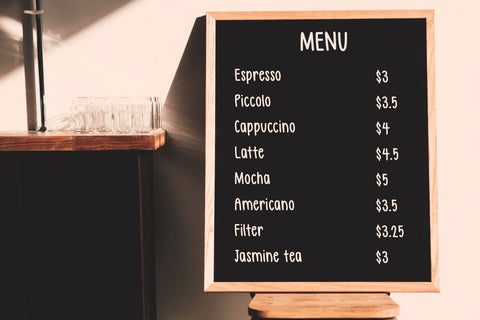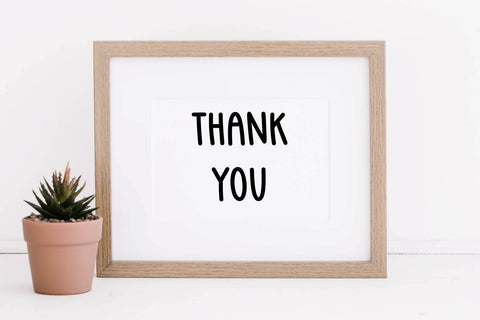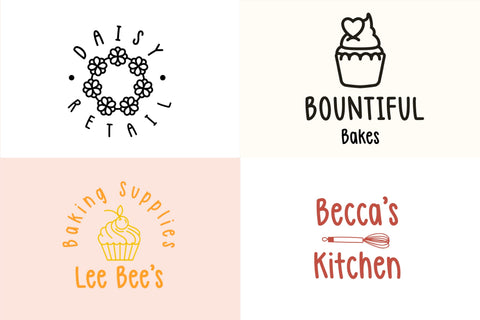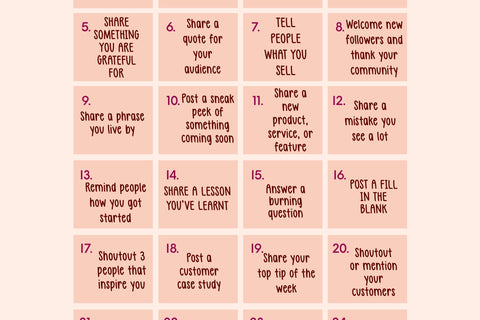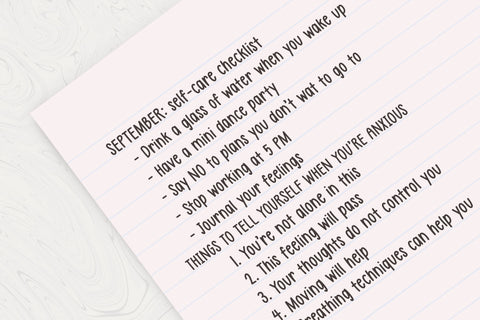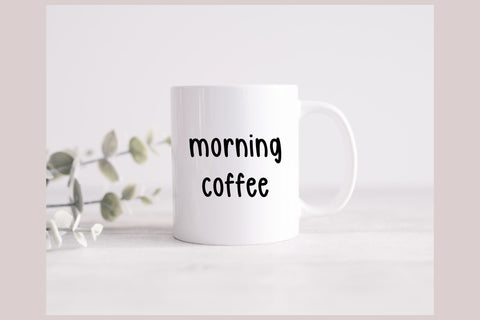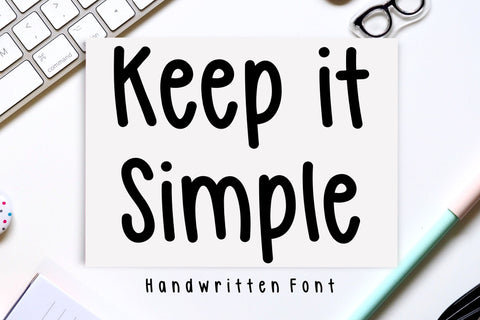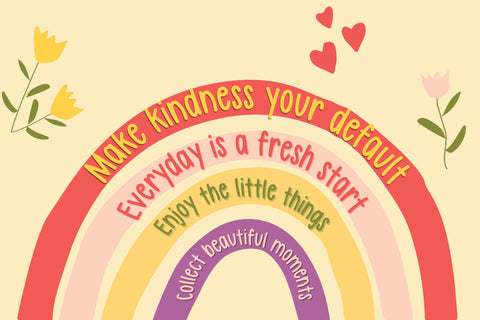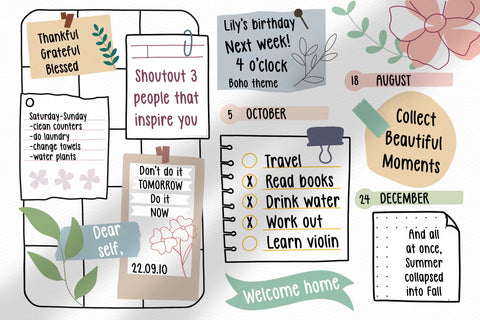
Keep It Simple - Handwritten Font
Keep it Simple is a sweet and friendly handwritten font. You can use this font in various projects - blog posts, logos, branding, digital planner, digital notes, invitations, greeting cards, planners, digital journal, photo albums, study notes, school notes, college notes, decorations and much more. Its authentic look and feel will add a personal and realistic feel to your designs.